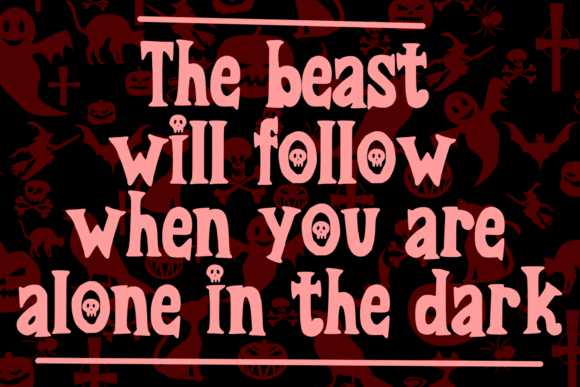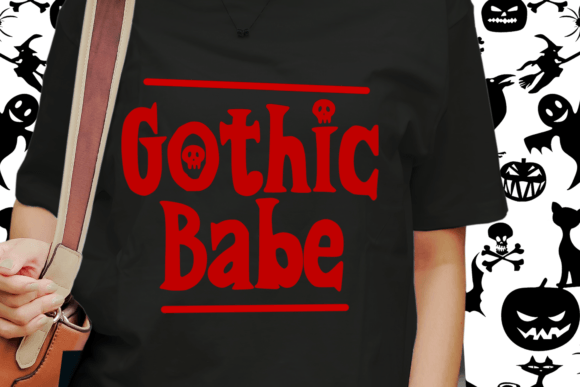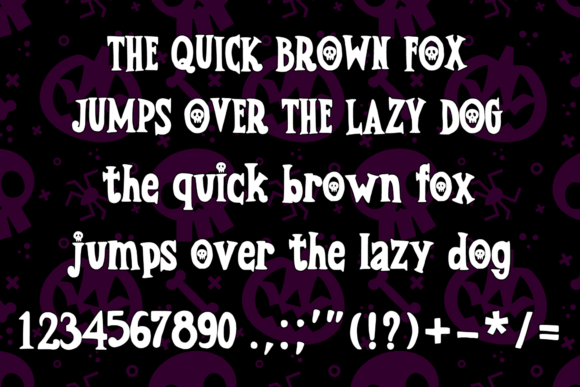
Introduction to Classic Horror Font
Classic Horror is a fun and comical horror display font inspired by vintage spooky cartoon.
Not only can be used for Halloween theme needs, you can use it too for other things for daily needs Use it on t-shirts and clothing, book designs, greeting cards, stickers, posters, banners, or anything that needs a fun touch.
Key Features of Classic Horror Font